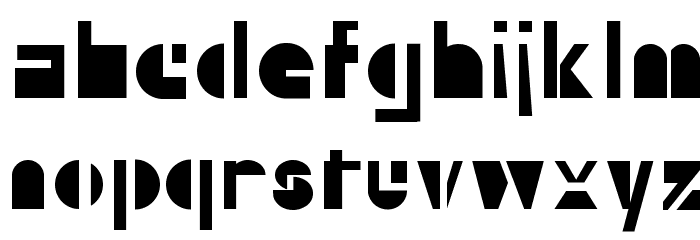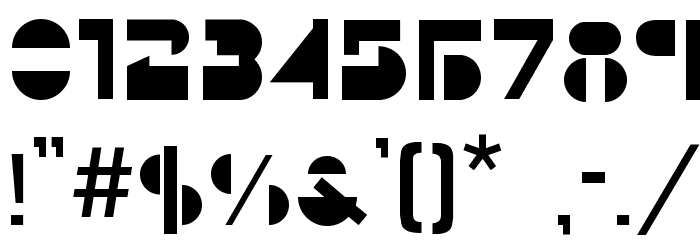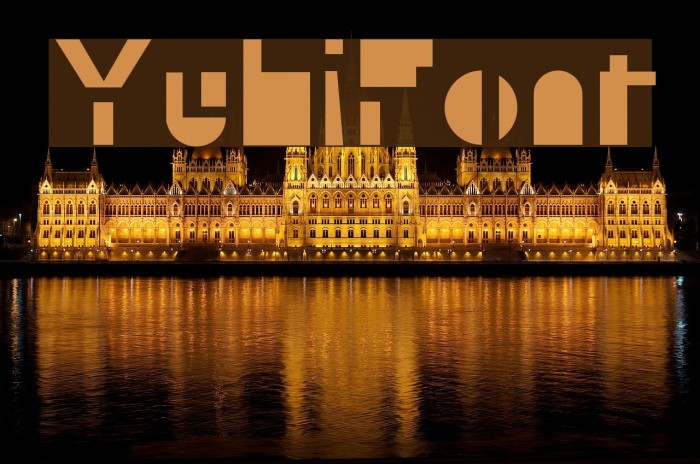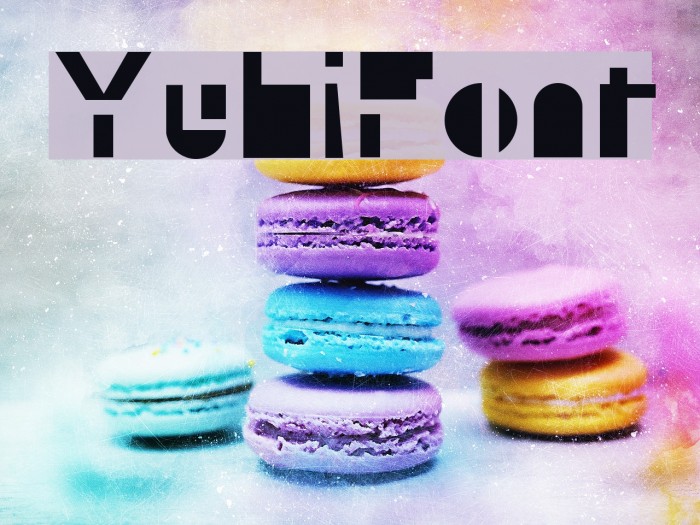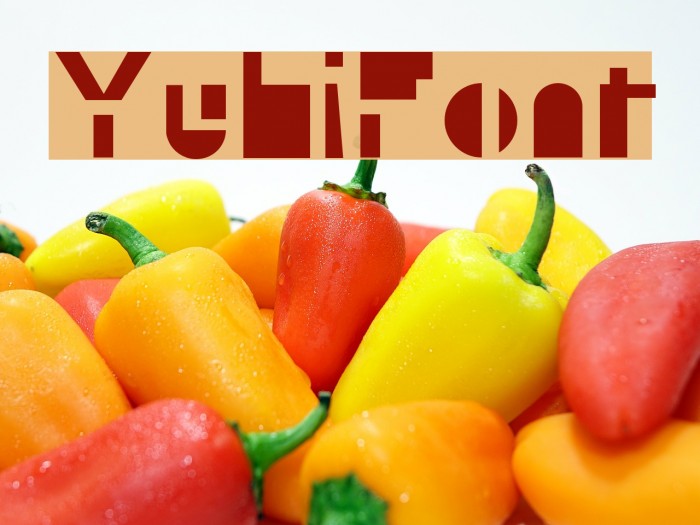
Yubi Font
This font features a bold, geometric design with a strong emphasis on angular shapes and sharp edges. Each character is constructed with a combination of solid blocks and negative spaces, creating a striking visual contrast. The uppercase letters are particularly bold and commanding, while the lowercase letters maintain a consistent style with slightly more rounded forms. Numbers and special characters follow the same geometric pattern, ensuring uniformity across all elements. The font's unique style makes it stand out, ideal for projects that require a modern and edgy aesthetic.
A bold, geometric font with angular shapes and strong visual contrast.